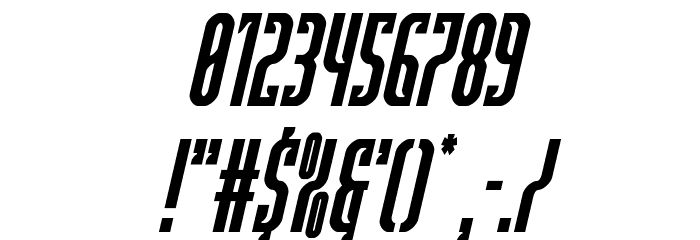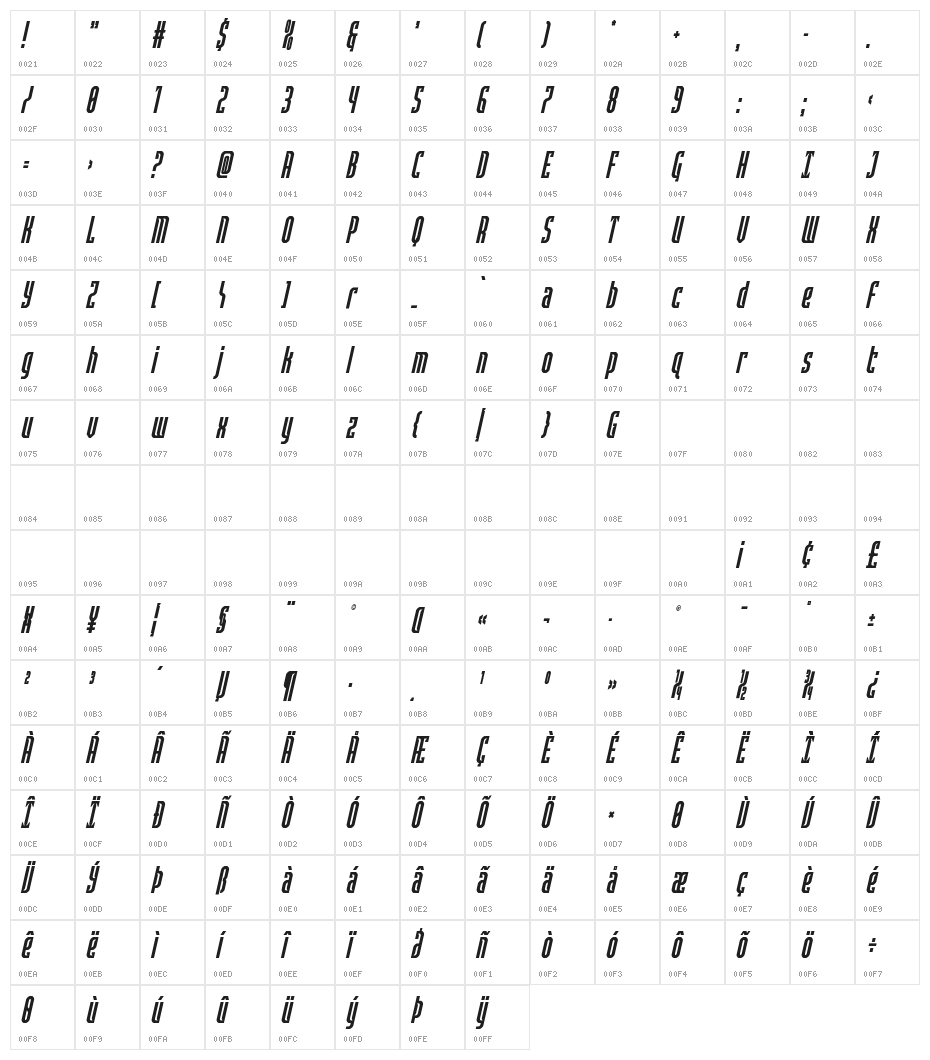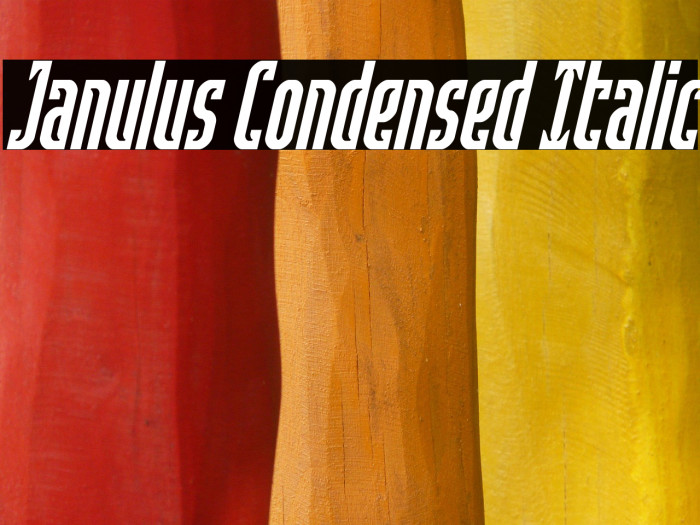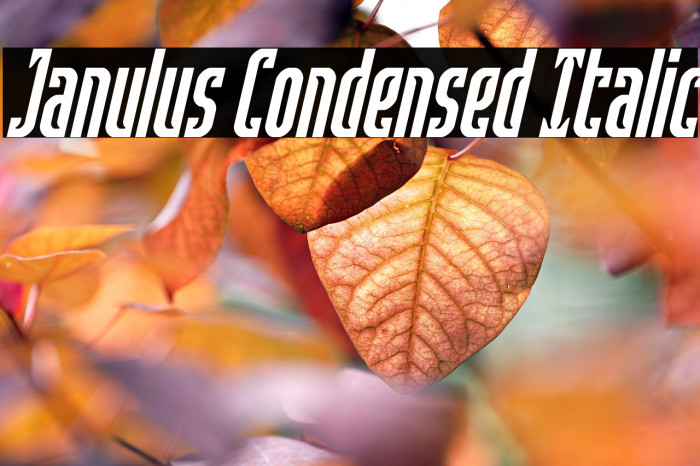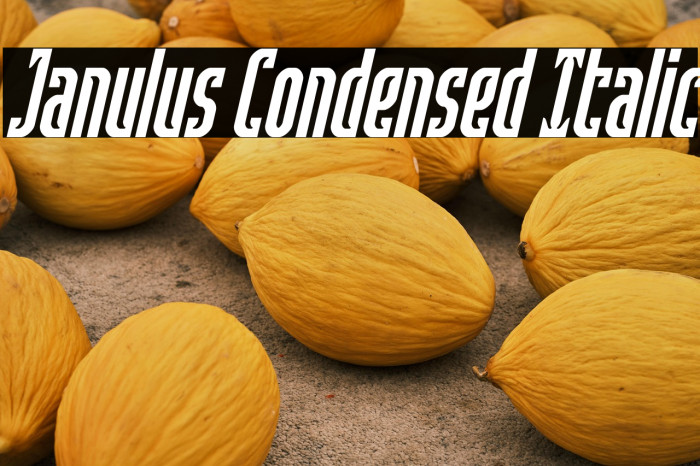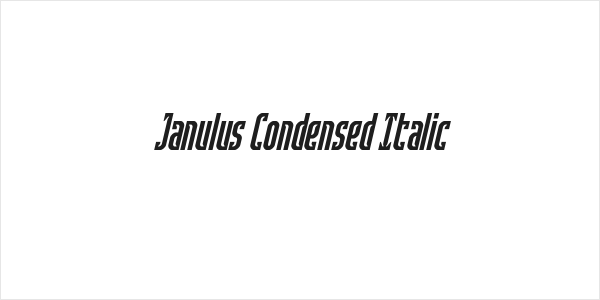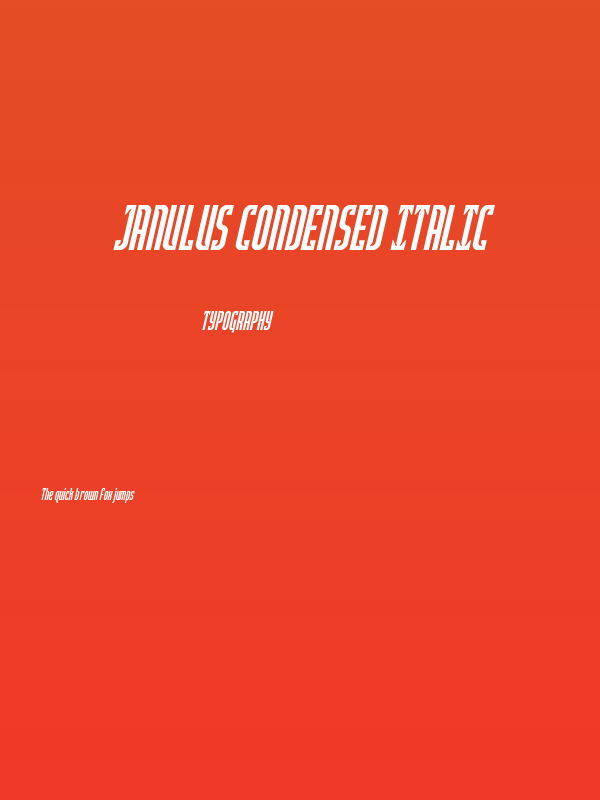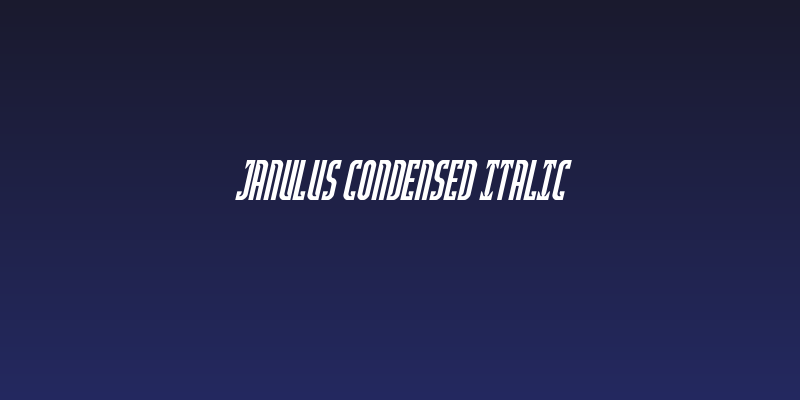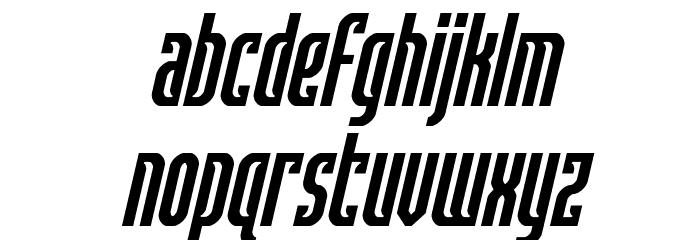
Janulus Condensed Italic Font
Janulus Condensed Italic Description
This font features a bold and dynamic style with a condensed and italicized form, giving it a sense of movement and urgency. The characters are tightly spaced, enhancing its compact appearance. The strokes are thick and consistent, providing a strong visual impact. The uppercase and lowercase letters maintain a uniform height, contributing to its cohesive look. The numerals and special characters are designed to match the overall aesthetic, ensuring versatility across different uses. Its modern appeal makes it suitable for eye-catching designs.